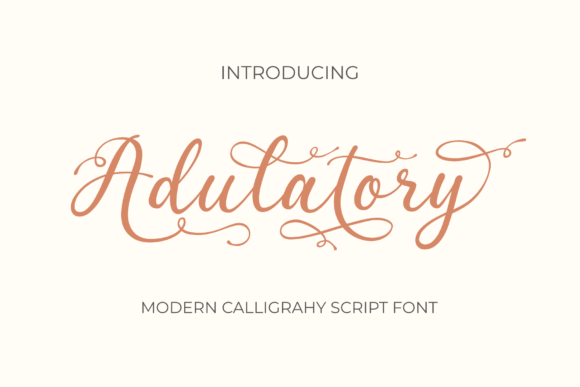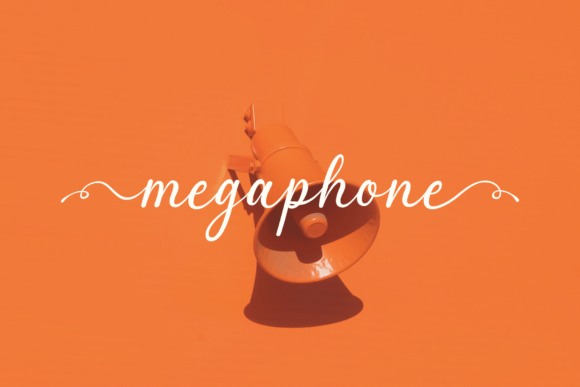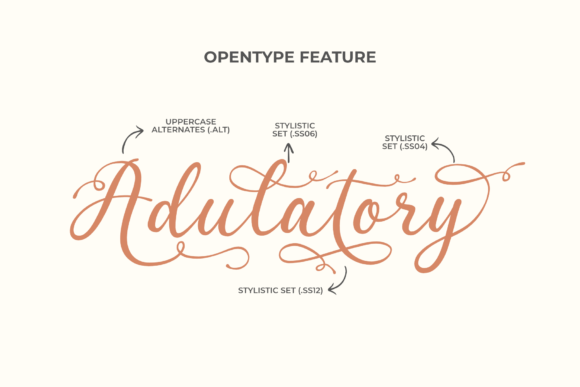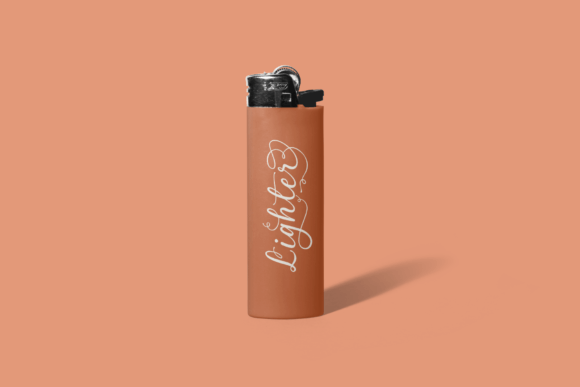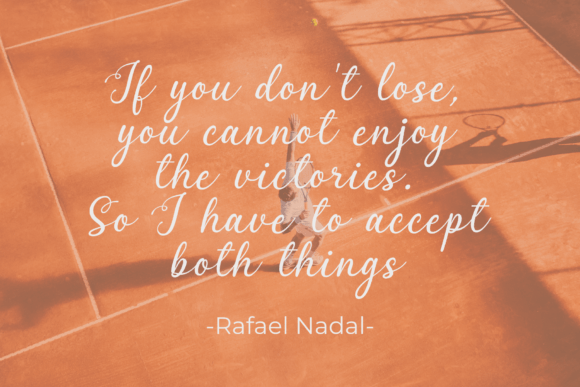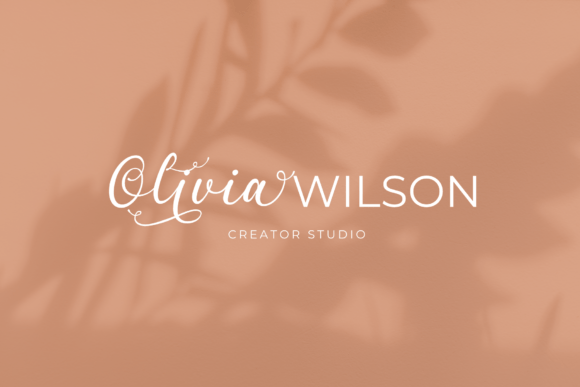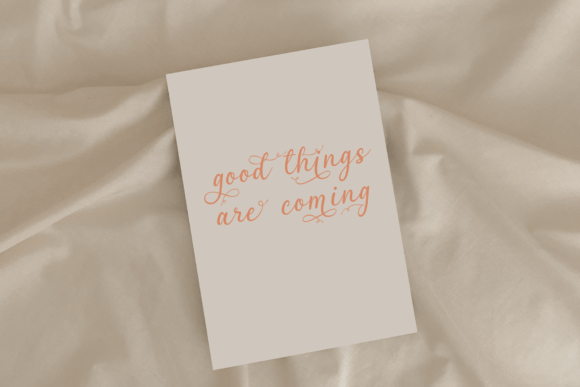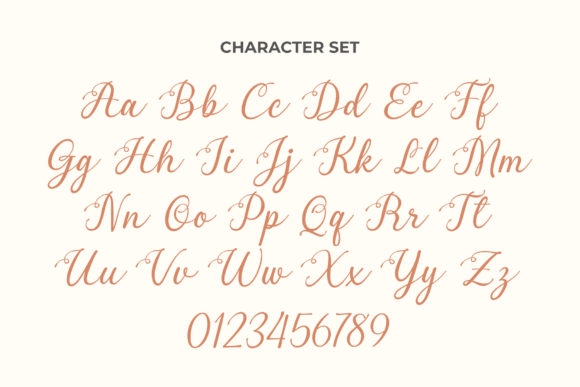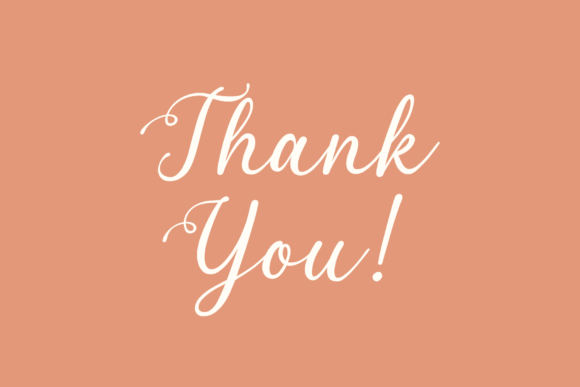
Adulatory Font
Adulatory Font: Elegant Calligraphy for Sophisticated Designs
“Adulatory” is a classy calligraphy script font that brings elegance and grace to your design projects. Its timeless style makes it perfect for various applications, from invitations to branding materials.
Key Features of Adulatory Font
• Elegant Style: Adulatory combines class with flowing script.
• Versatile Use: Suitable for many projects, including wedding invitations and packaging.
• PUA Encoding: Easy access to a wide range of glyphs and swashes.
Invitations and Stationery
Adulatory’s elegant style is ideal for creating sophisticated invitations and special event materials.
Use Adulatory to design refined logo designs and branding materials that convey professionalism and creativity.
Poster and Print Design
The font’s distinct look makes it perfect for creating eye-catching posters and print materials.
Why Choose Adulatory Font?
Adulatory offers more than just beautiful letters. Here’s why it stands out:
• Adds a touch of sophistication to designs
• Provides extensive customization options with PUA encoding
• Creates a lasting, elegant impression
By using Adulatory, you open up new design possibilities. Its elegant style works well in many contexts, from website headers to greeting cards. The font’s ability to convey refinement can inspire creative ideas and help you approach projects from a fresh perspective.
If you’re looking for a font that combines elegance with versatility, Adulatory is an excellent choice. It’s perfect for adding a sophisticated touch to your work, especially for projects that need a timeless and refined feel.
Explore how Adulatory can transform your designs. From formal business materials to creative artistic projects, this font brings a graceful and captivating quality to your creations.